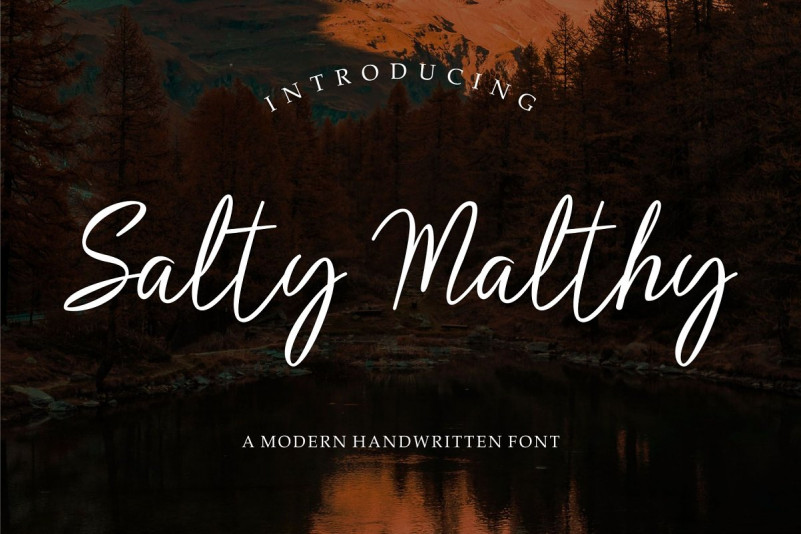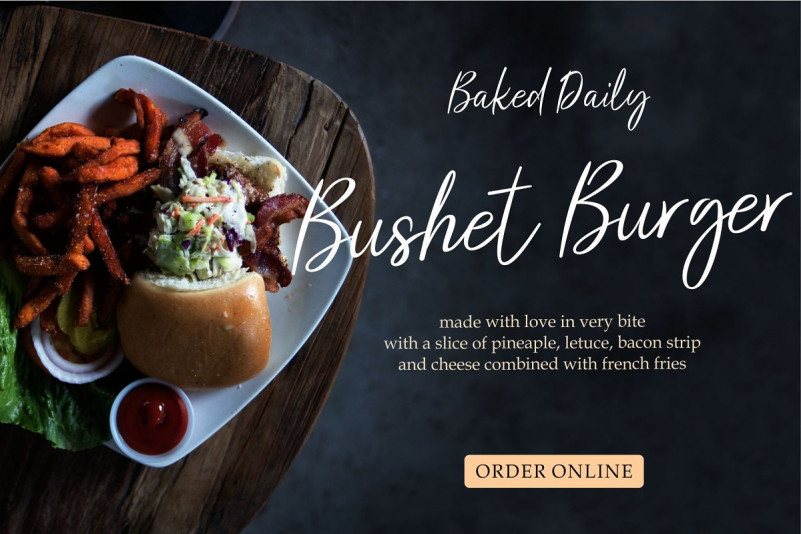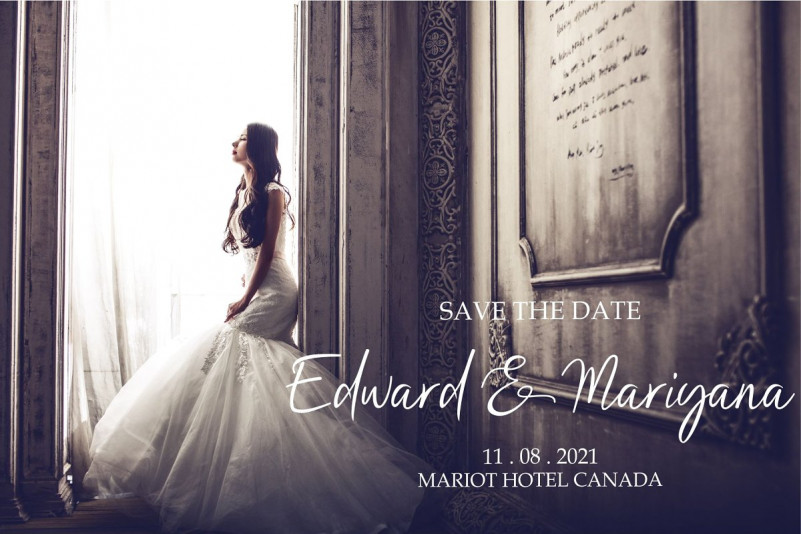
Salty Malthy // Cute Display Font
Salty Malty is a beatiful display font it made with perfect combining of each characters It looks original and can be used for all your project needs.